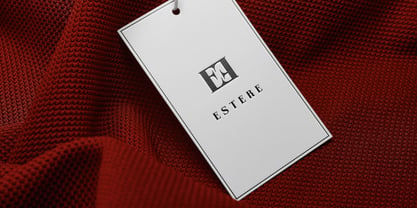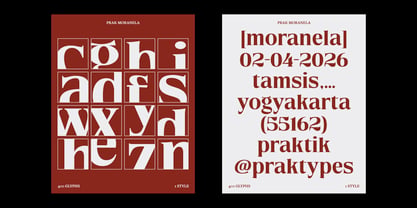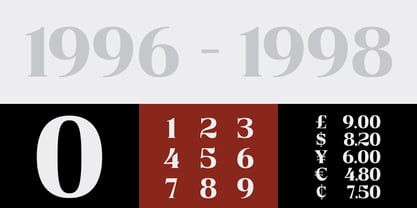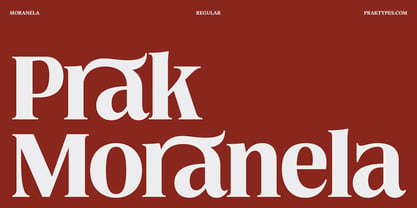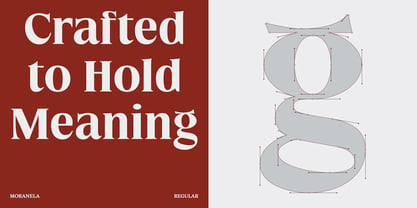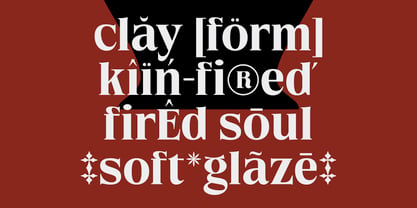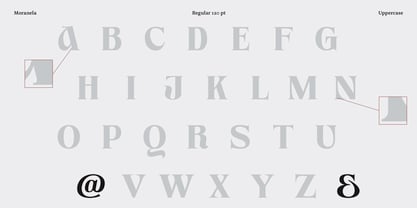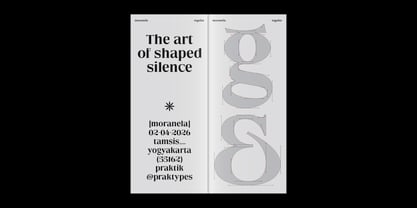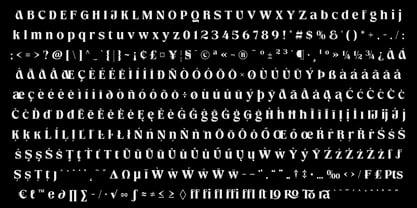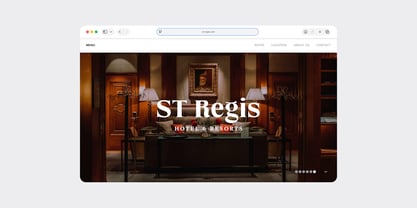
PRAK Moranela
by Praktypes
The PRAK Moranela Font Family was designed by Andreas Rossi, Khoirul Faktur Rohmat and published by Praktypes. PRAK Moranela contains 1 styles. More about this family
PRAK Moranela is a premium display serif designed for those who seek a balance between bold presence and sophisticated detail. Inspired by the transition from classic Roman structures to the organic curves of Art Nouveau, this typeface features razor-sharp contrast and unique, eccentric terminals that demand attention. With its sturdy stems and flowing, rhythmic curves, PRAK Moranela is built to command the spotlight. Whether it’s for high-fashion editorial, luxury branding, cinematic titles, or high-end packaging, this font brings an air of "Silent Luxury" and timeless prestige to every layout. Key Features: - High-Contrast Aesthetics: Sharp, thin hairlines paired with bold, powerful strokes for a dramatic visual impact. - Unique Character Details: Distinctive forms in letters like 'Q', 'g', and 'J' that add a touch of avant-garde personality. - Latin Pro Support: Extensively developed with a full professional character set, covering over 90+ languages (Western, Central, and South-Eastern European). - Rich Glyph Set: Includes uppercase, lowercase, numbers, punctuation, and essential symbols for a seamless professional workflow. Best Suited For: - Luxury Branding & Logos - Fashion Editorial & Magazine Headlines - Premium Product Packaging (Wine, Perfume, Cosmetics) - Cinematic Posters & Title Sequences - High-End Event Invitations Technical Details: - Foundry: Praktypes